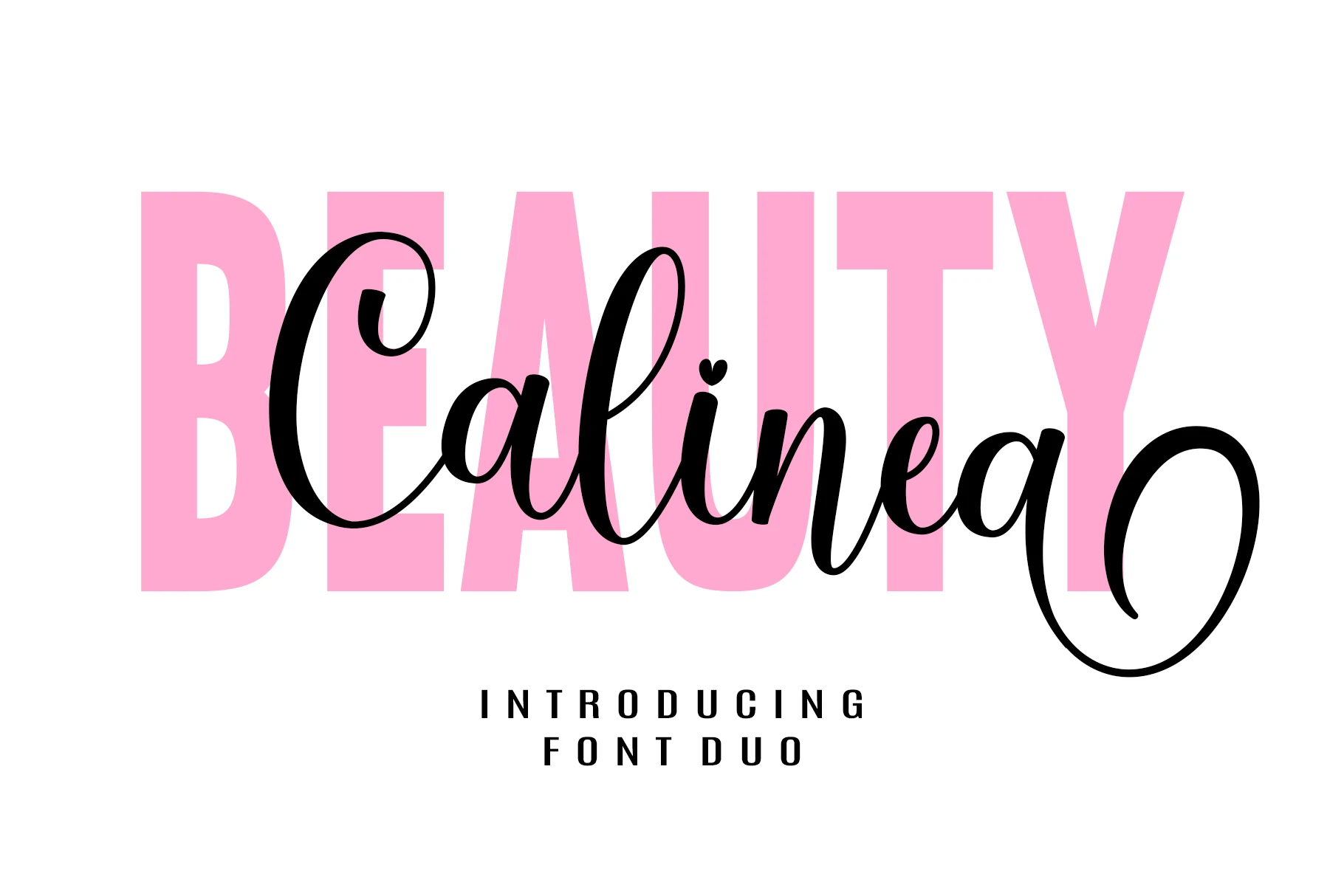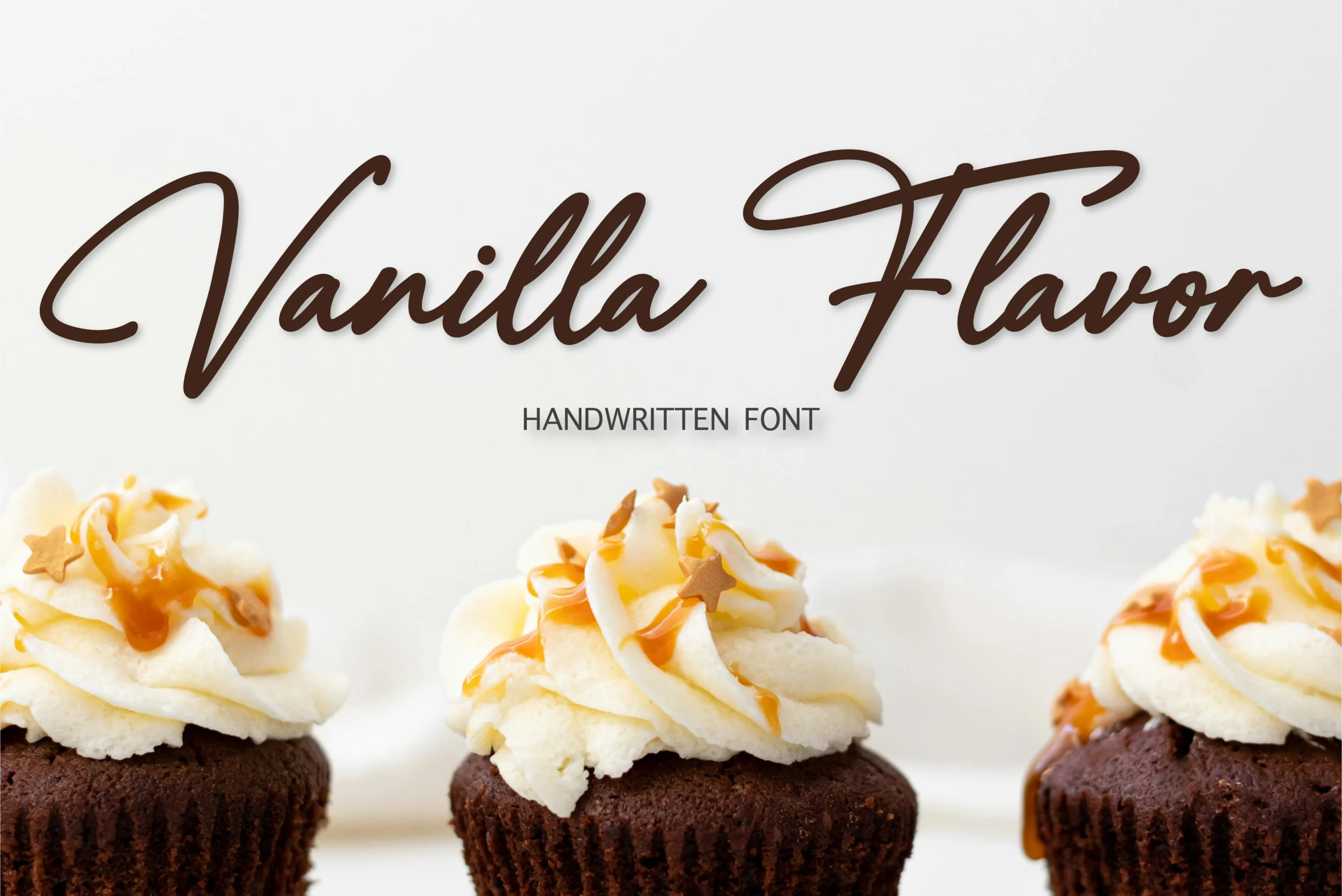
Wedding Fonts are not one fixed style. A formal invitation may need delicate calligraphy, while a luxury wedding logo can work better with a high-contrast serif, a signature script, or a clean modern font. This hub gathers the main wedding font guides on Expressive Fonts and gives you a fast way to choose the right direction before opening the full collection.
Quick Guide to Wedding Fonts
| Design Goal | Best Starting Point | Use It For |
|---|---|---|
| Formal invitation suites | Wedding Invitation Fonts | invitations, RSVP cards, save-the-dates |
| Graceful handmade lettering | Calligraphy Wedding Fonts | names, envelopes, vows, signage |
| Decorative script headlines | Script Wedding Fonts | couple names, cards, wedding signs |
| Soft refined layouts | Elegant Wedding Fonts | polished stationery, romantic branding |
| Love-themed designs | Romantic Wedding Fonts | wedding cards, sweet accents, social graphics |
| Premium wedding branding | Luxury Wedding Fonts | logos, menus, packaging, high-end invitations |
| Nostalgic wedding suites | Vintage Wedding Fonts | old-world invitations, monograms, retro details |
| Natural relaxed styling | Boho Wedding Fonts | earthy invitations, boho branding, editorial titles |
| Clean contemporary designs | Modern Wedding Fonts | minimal invitations, venue cards, modern logos |
| Structured editorial typography | Wedding Serif Fonts | serif headers, packaging, bridal brand systems |
Wedding Invitation Fonts
Start here when the main job is an invitation suite. This section highlights formal, romantic, signature, and playful styles that can carry names, RSVP cards, save-the-dates, and wedding stationery.
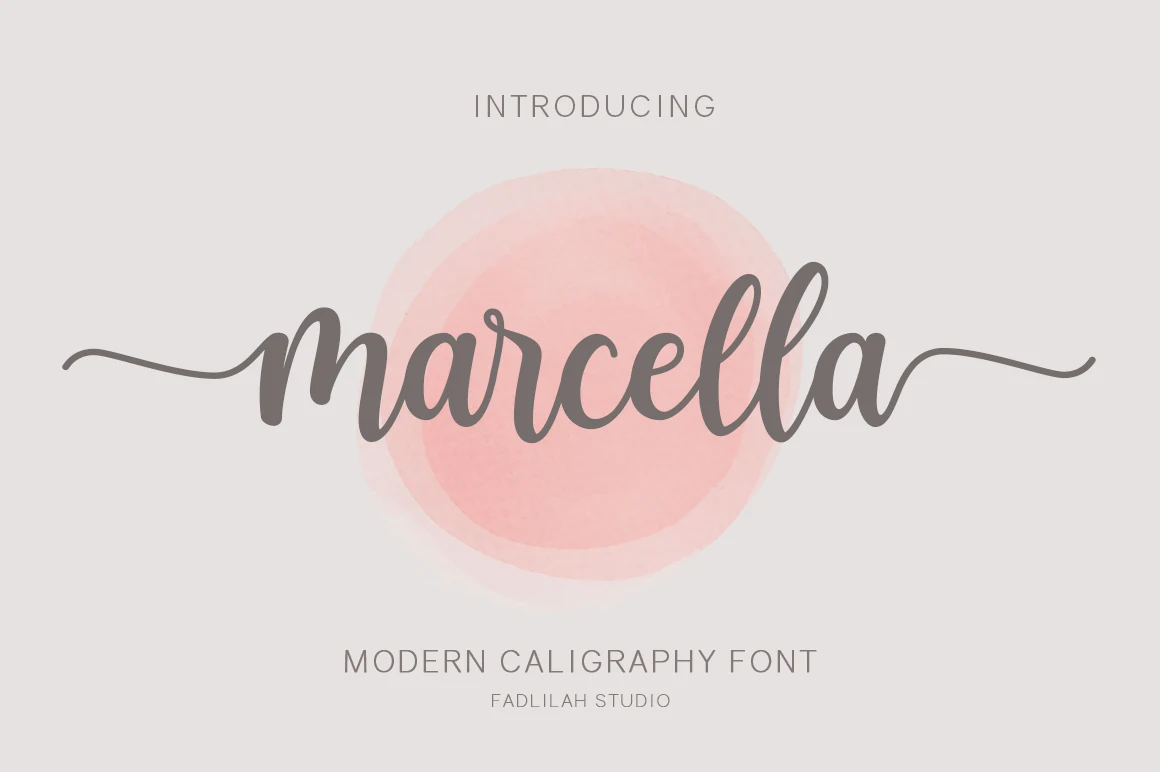
Calligraphy Wedding Fonts
Use this guide when the design needs handwritten elegance, fine strokes, long swashes, and a more personal invitation mood.
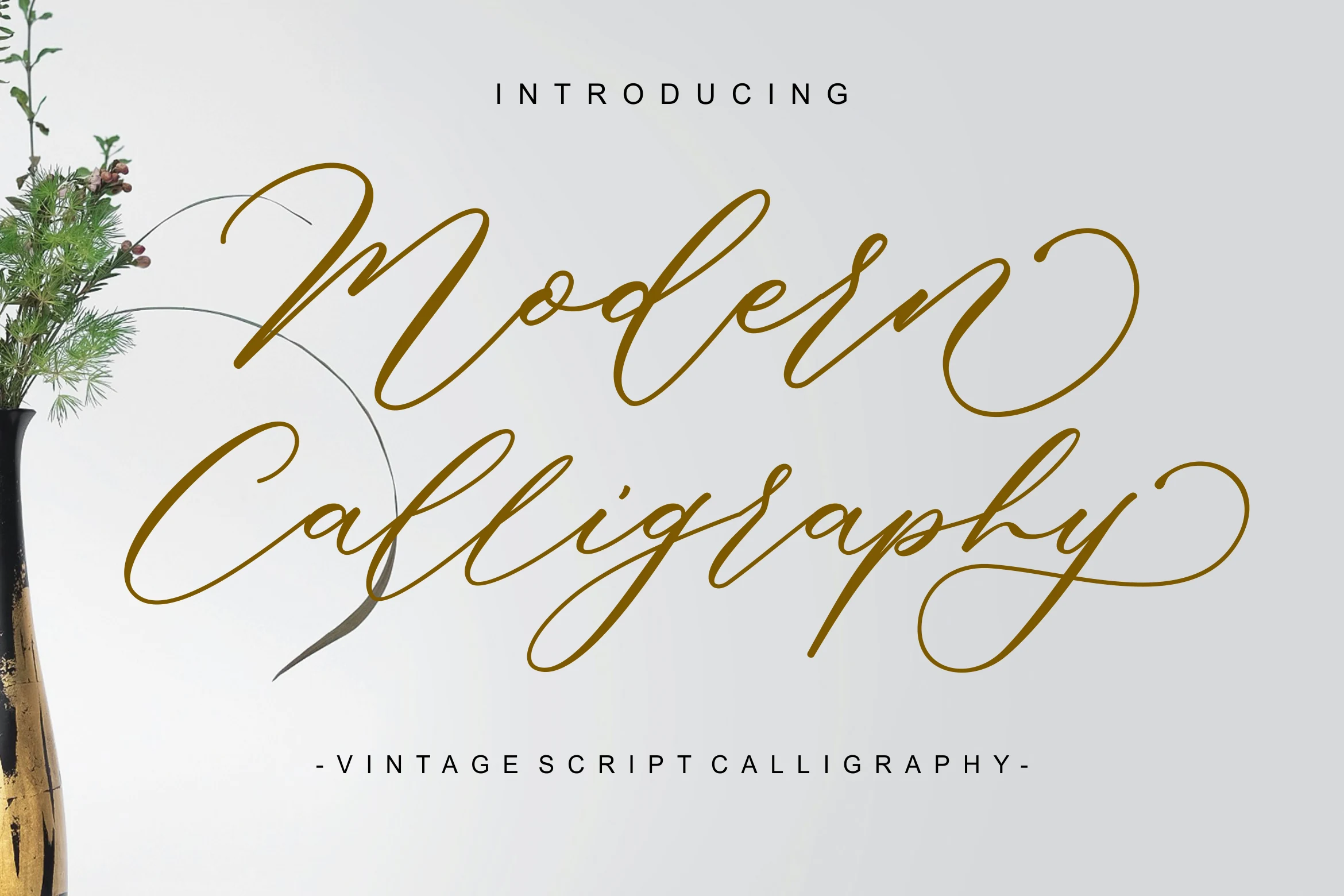
Script Wedding Fonts
Script styles are the safest category for names, short romantic headings, signage, and decorative wedding titles where the lettering needs visible movement.
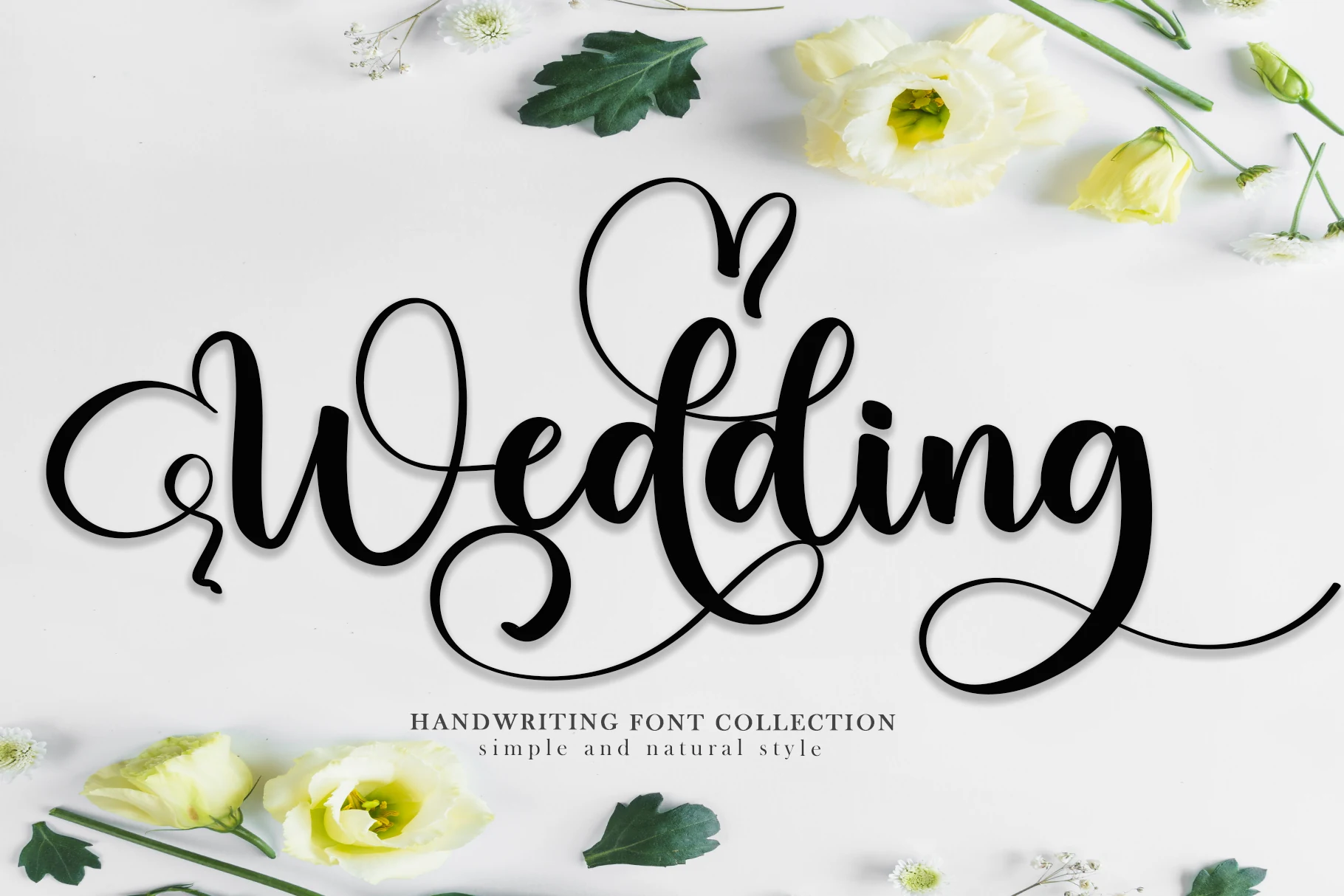
Elegant Wedding Fonts
This section is for cleaner, softer, and more polished designs where the font must look refined without becoming too theatrical.
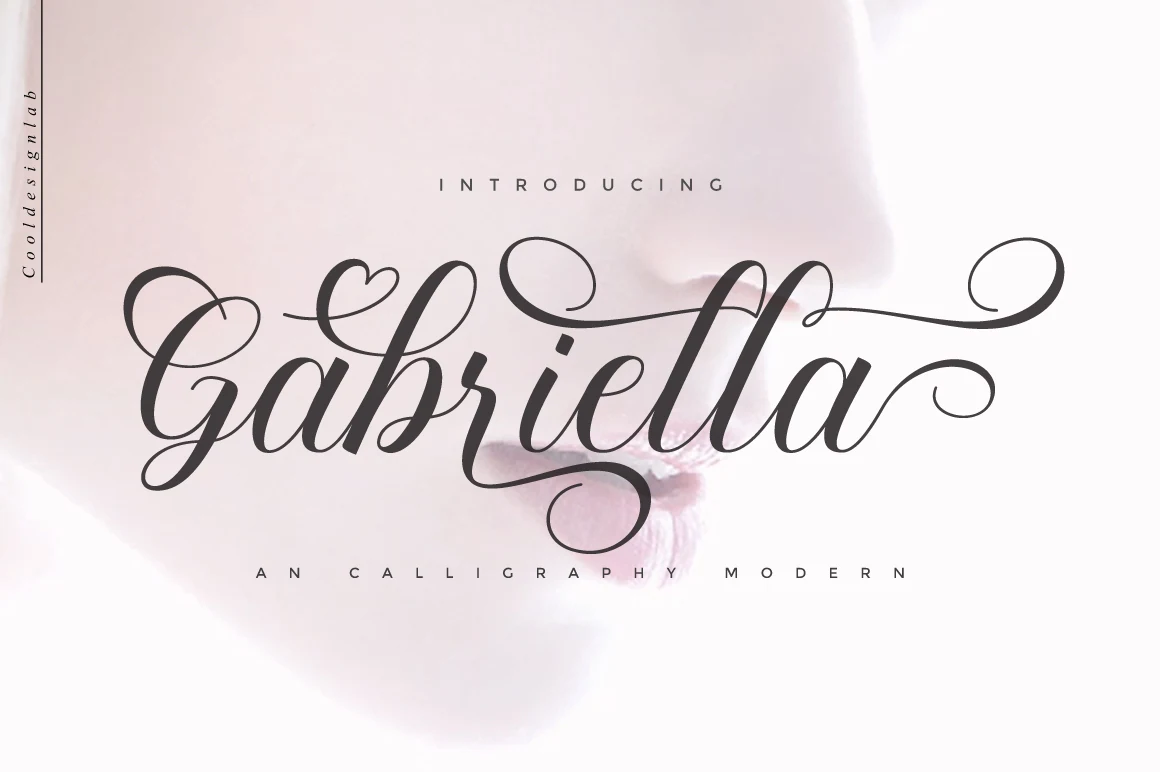
Romantic Wedding Fonts
Use romantic styles for love-themed cards, sweet invitation details, soft script headlines, and expressive wedding graphics.
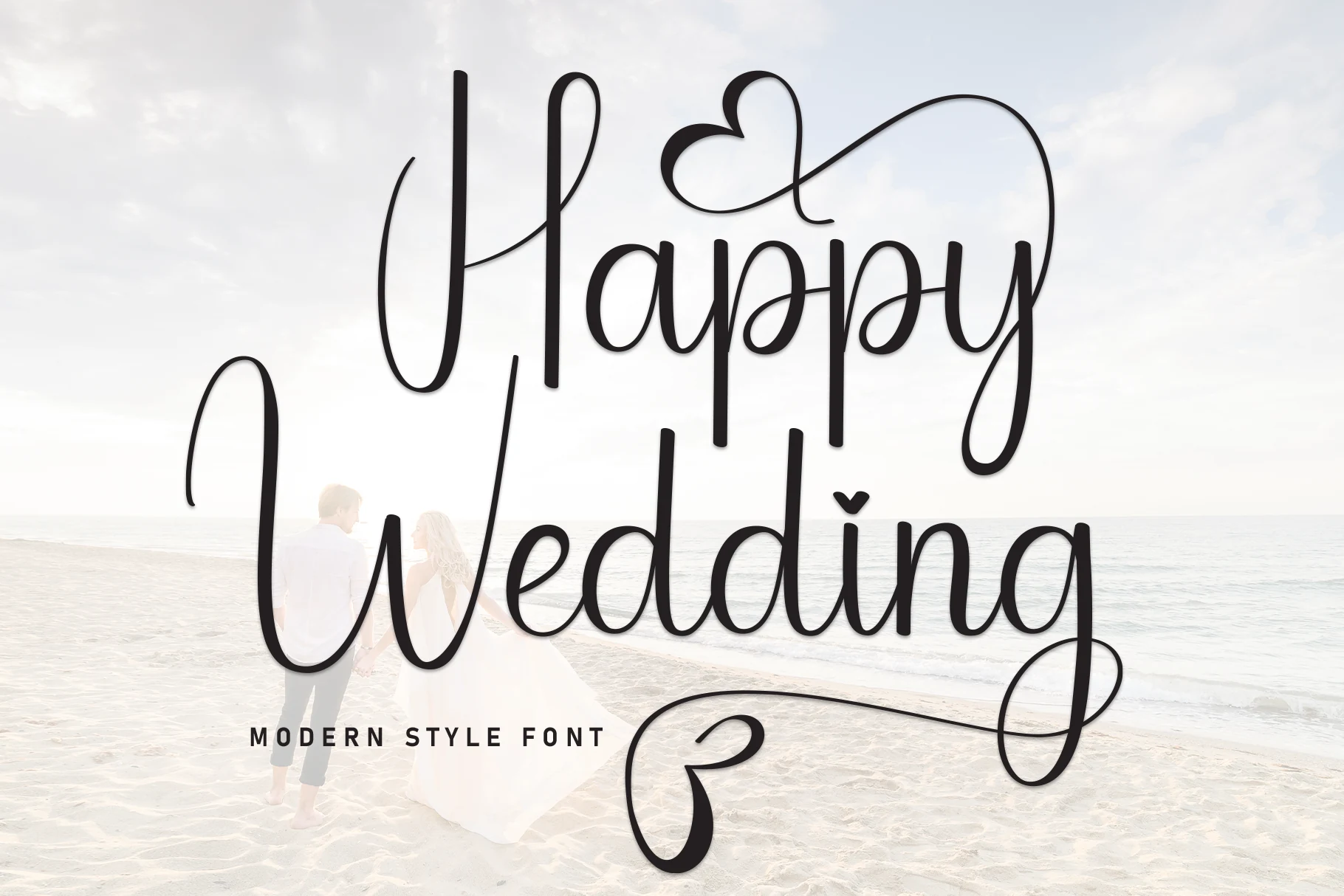
Luxury Wedding Fonts
Luxury wedding fonts work best when the layout needs a premium tone: high-end invitations, refined menus, elegant logos, and upscale event branding.
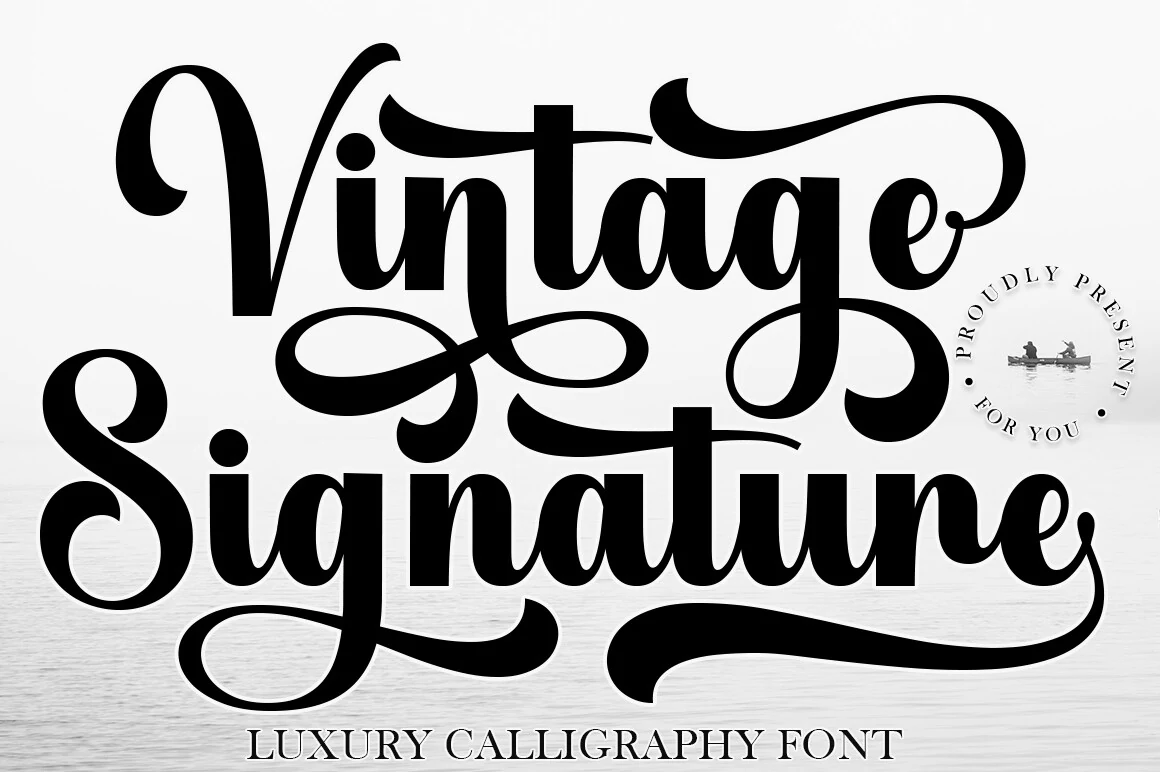
Vintage Wedding Fonts
Vintage styles are useful when the wedding suite needs old-world charm, nostalgic curves, decorative serifs, or retro lettering without losing readability.
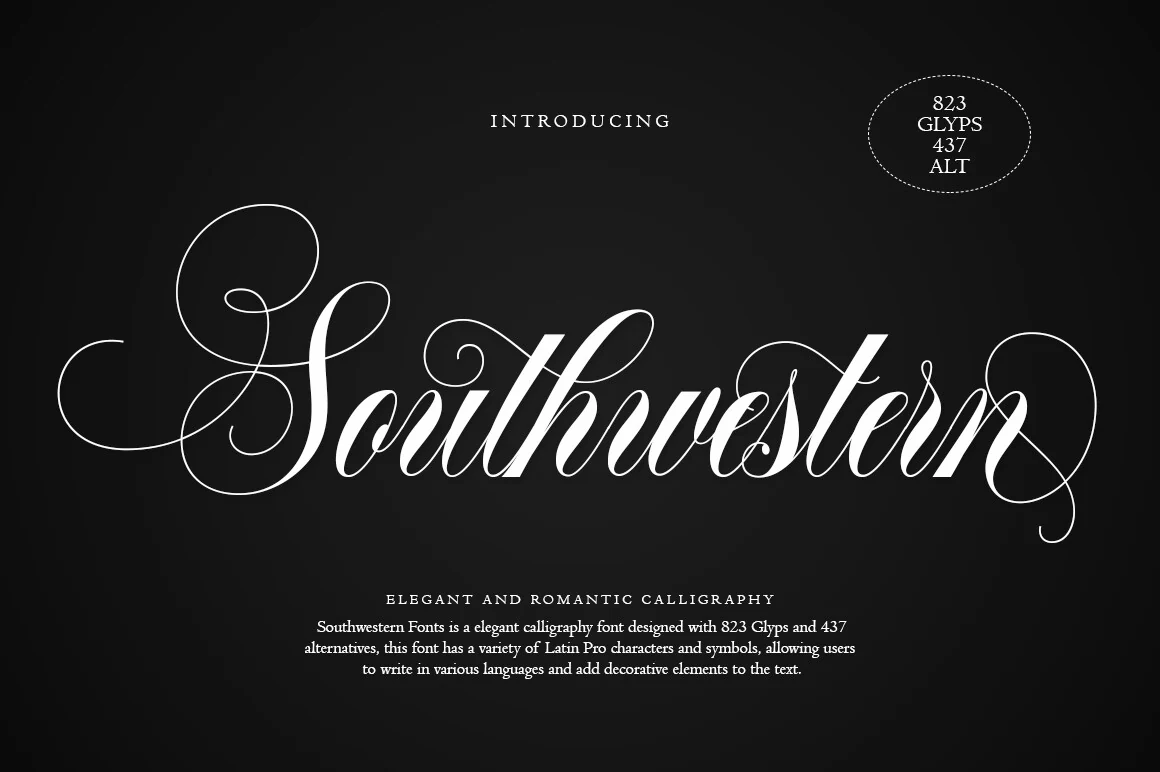
Boho Wedding Fonts
Boho wedding fonts suit natural, airy, earthy, and editorial invitation layouts where the style should feel warm rather than formal.
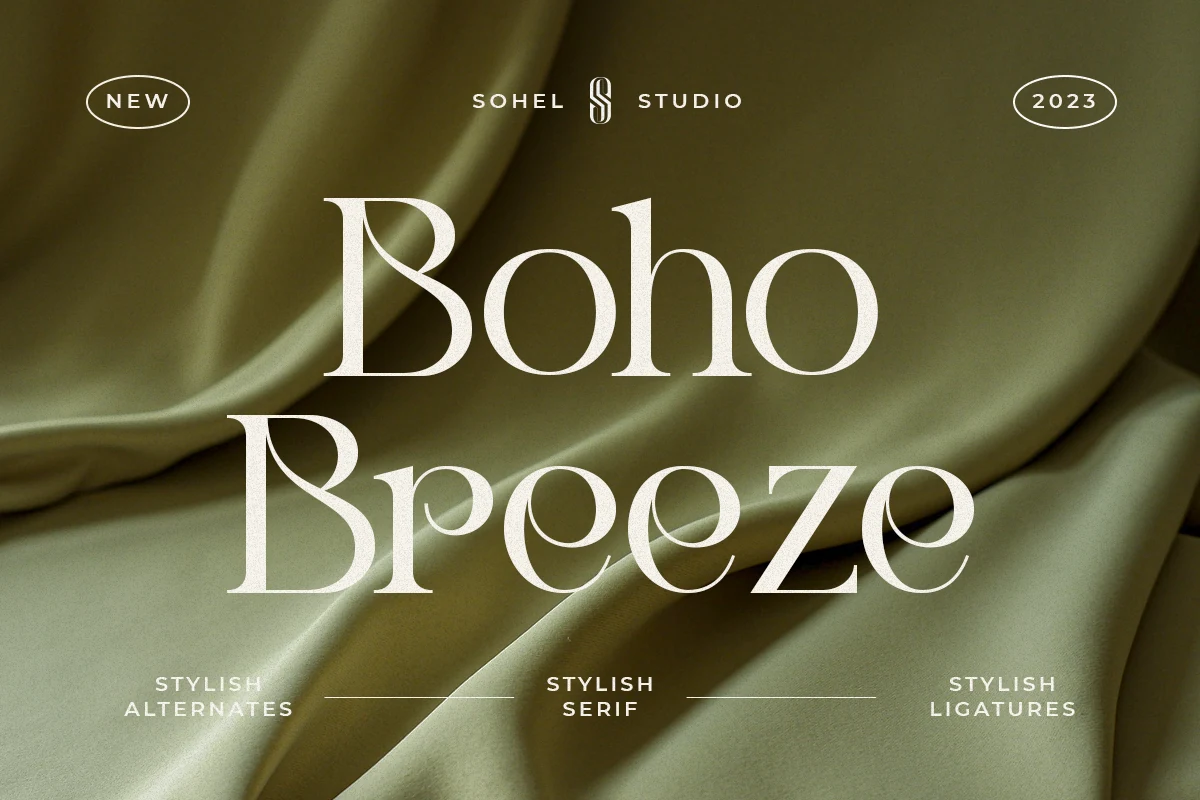
Modern Wedding Fonts
Modern wedding fonts are better for clean invitation systems, minimal venue cards, contemporary branding, and refined editorial layouts.
Wedding Serif Fonts
Serif wedding fonts are the strongest option for structured designs: invitation headers, logos, packaging, menus, and editorial bridal branding.
Final Thoughts on Wedding Fonts
The fastest way to choose Wedding Fonts is to start with the job: invitations need readable elegance, logos need stronger structure, romantic cards can handle sweeter scripts, and luxury branding usually needs more contrast and restraint. Use this hub as the entry point, then open the full guide that matches the visual direction of the project.